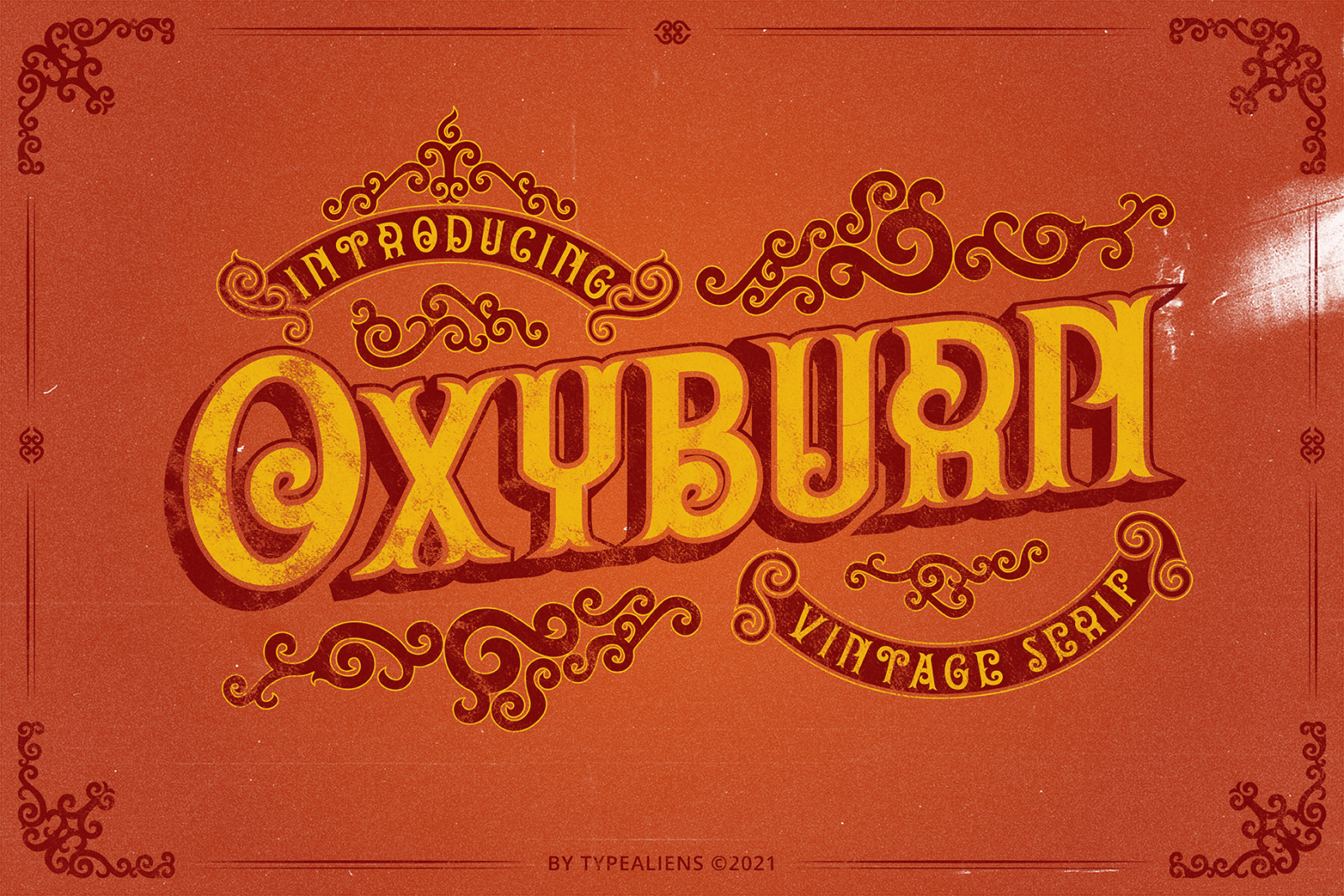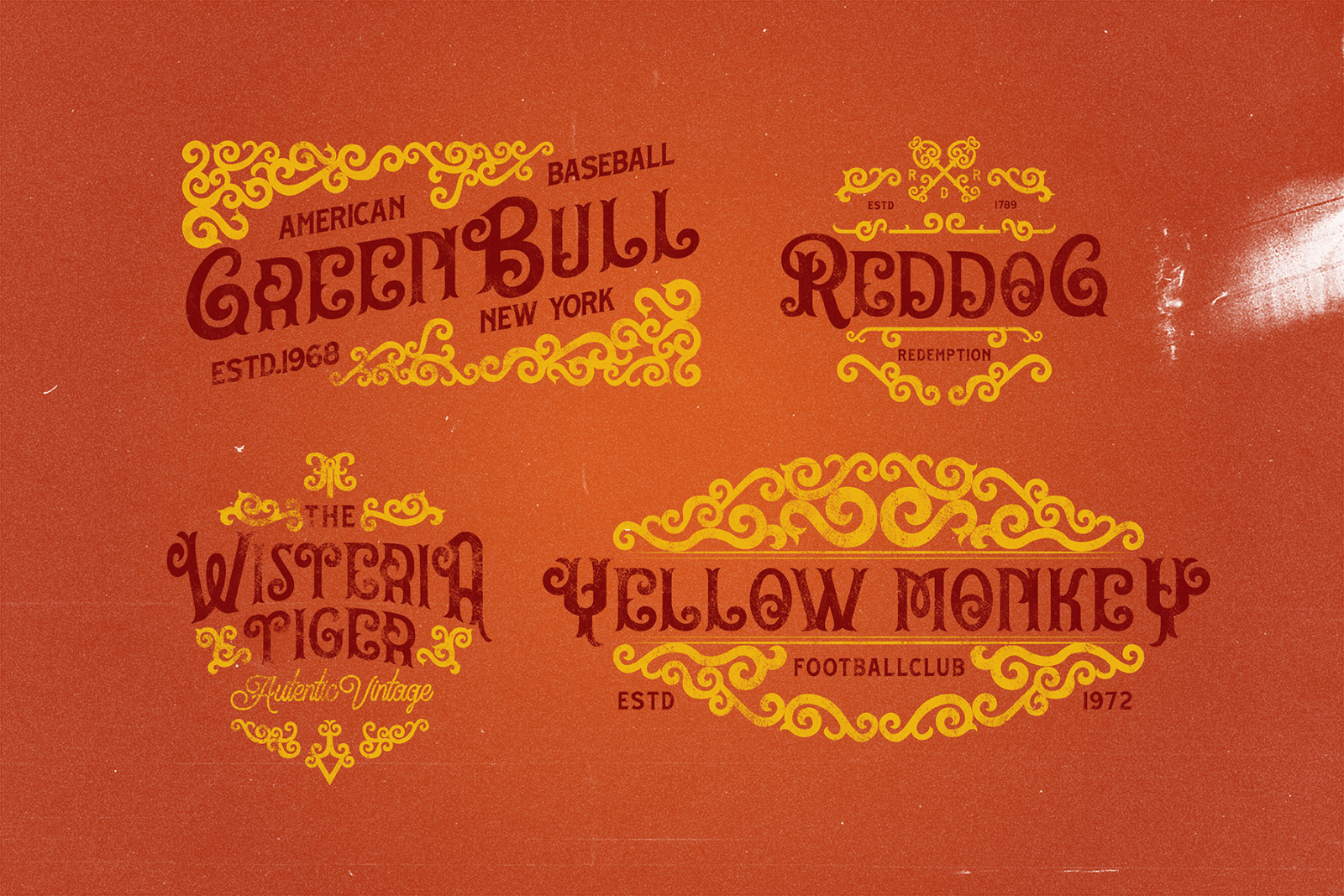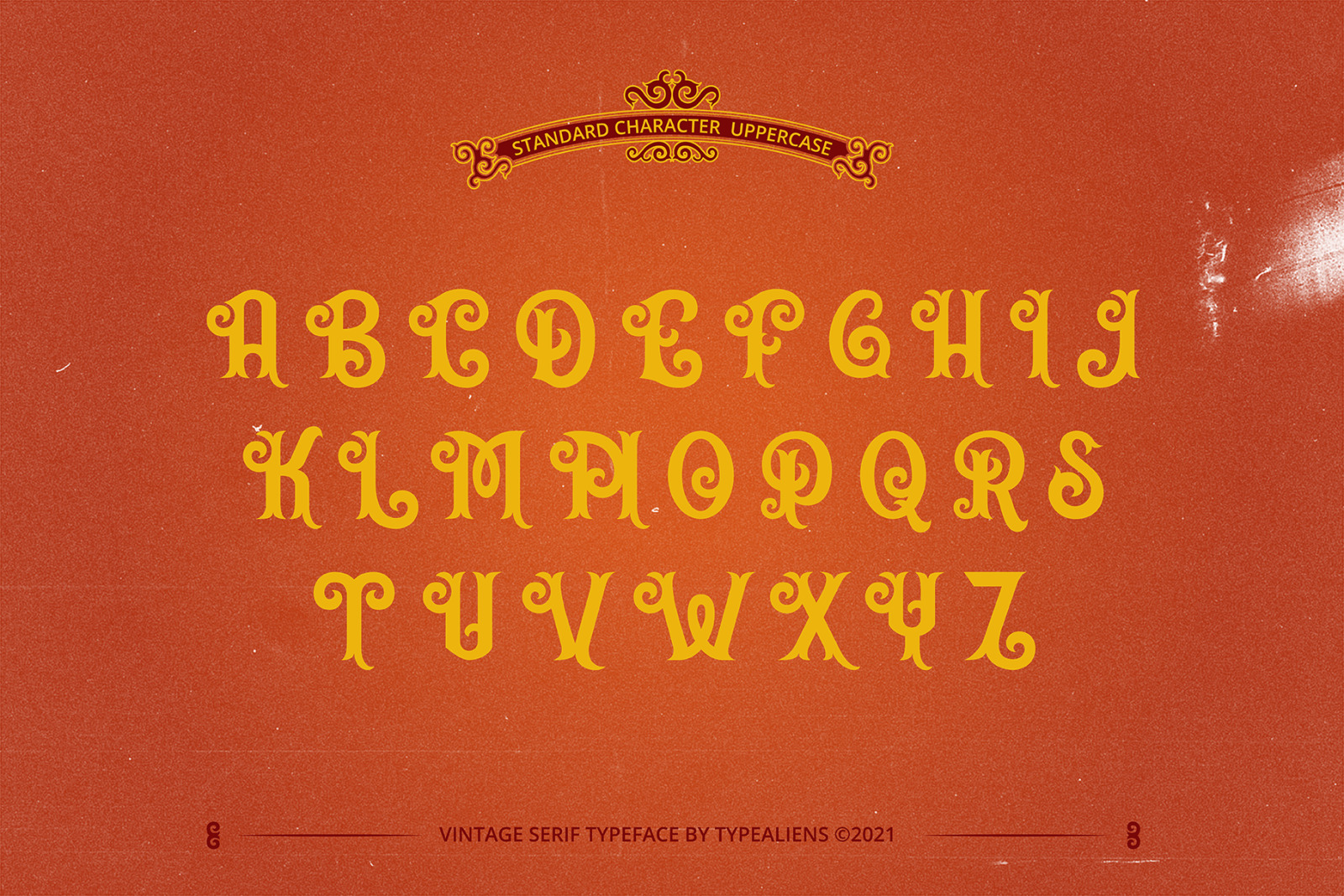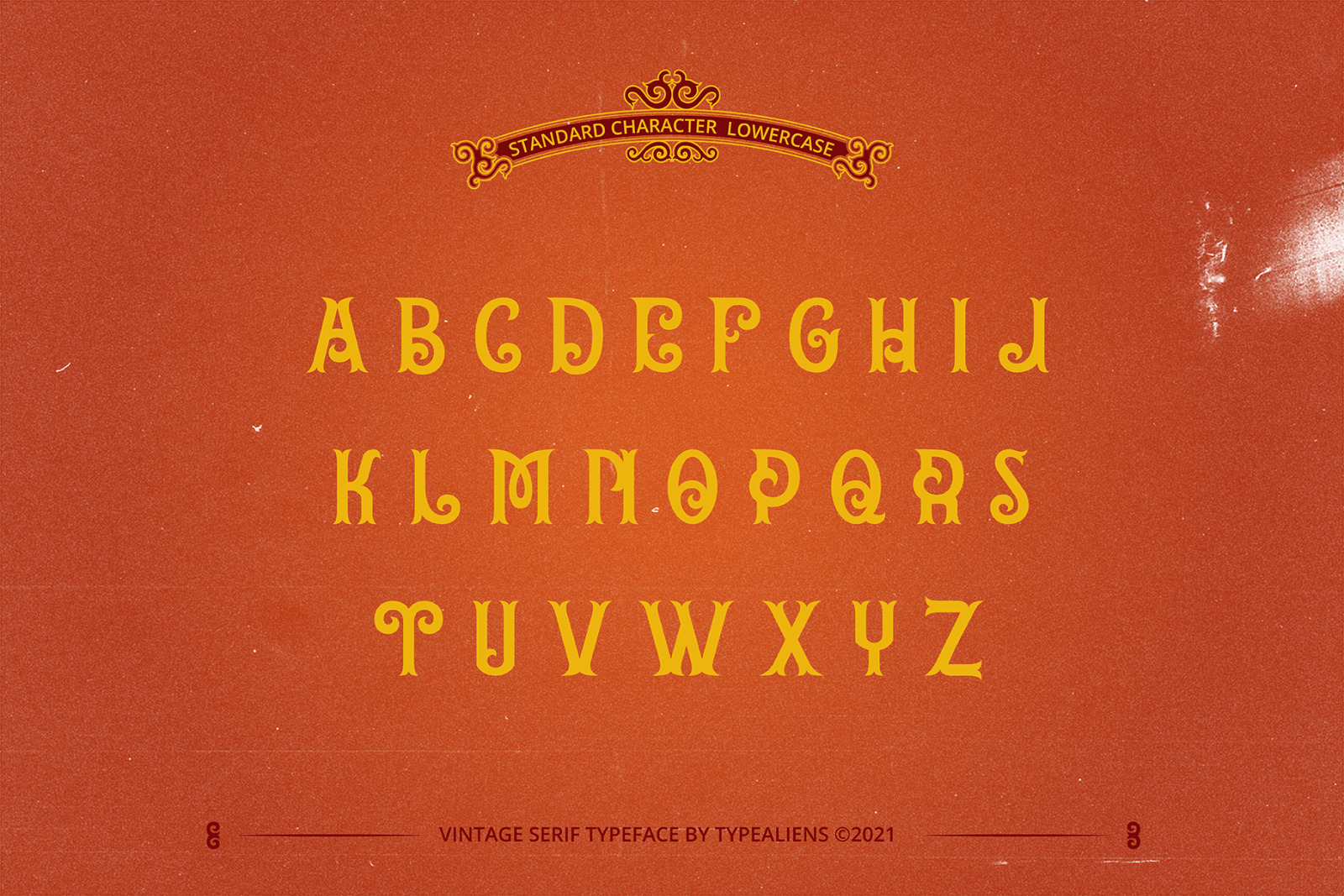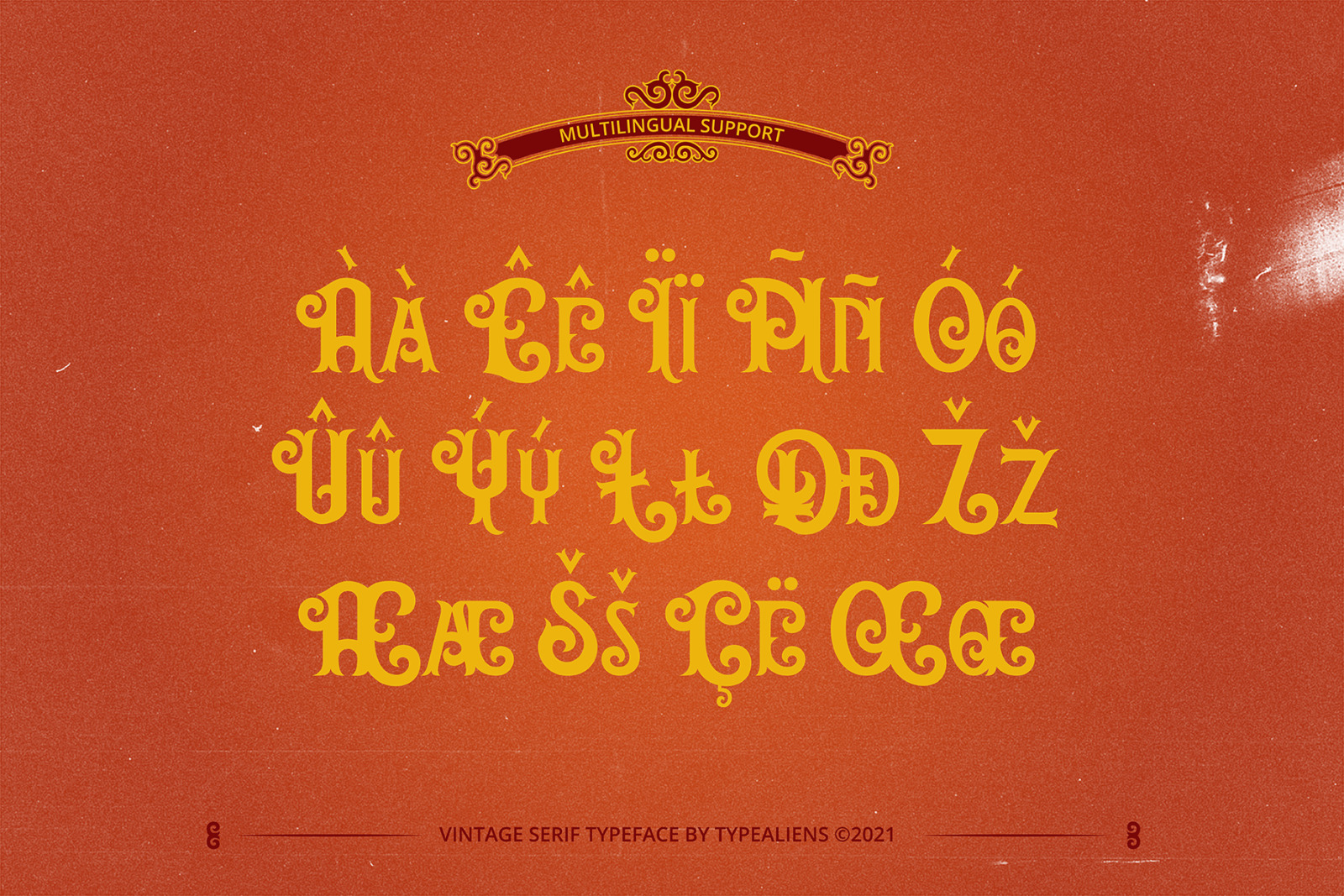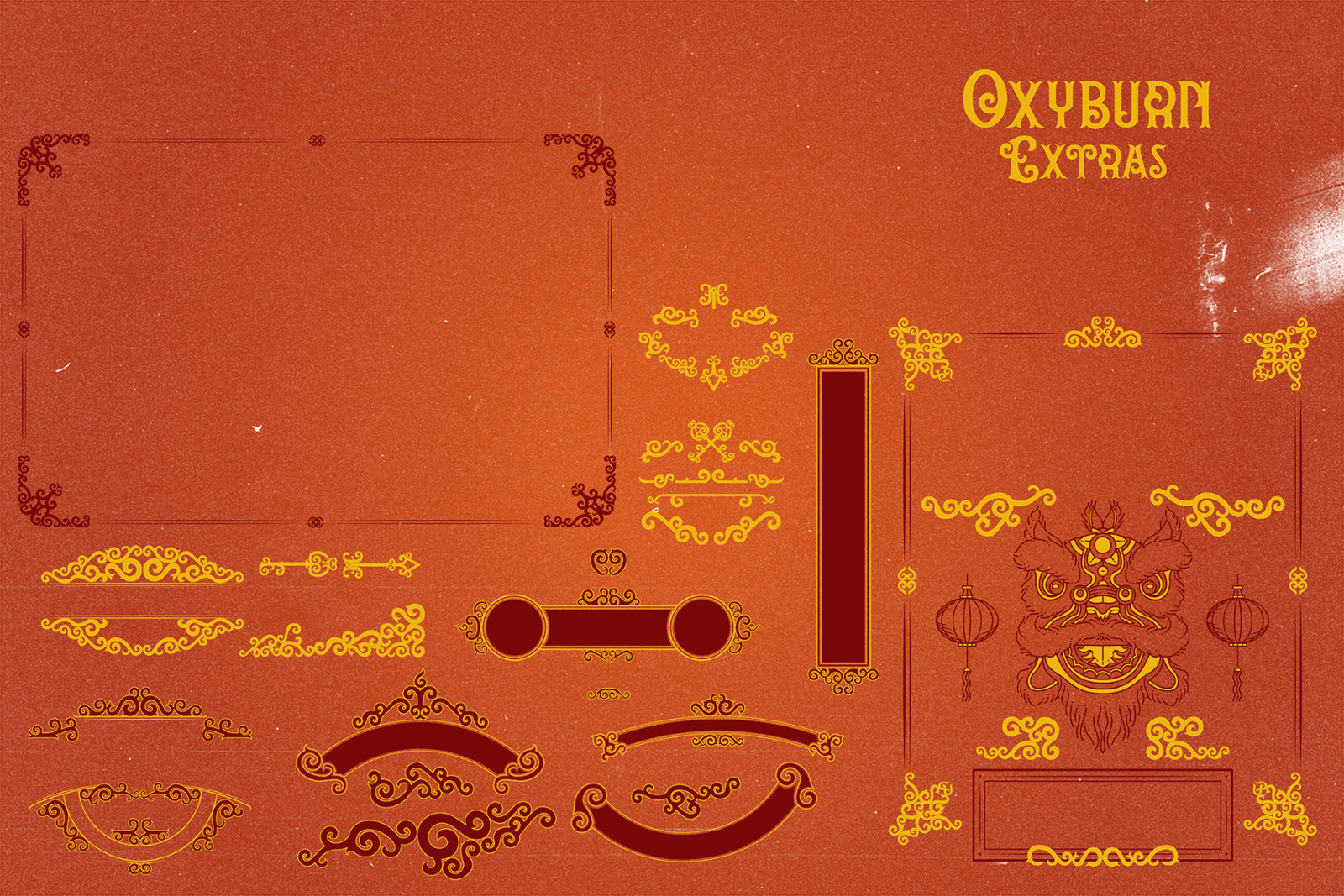
Oxyburn Font
OXYBURN is a serif font that is classified as a display font, with a vintage style that will be very attractive if combined with tendrils ornaments, such as the characteristic of this font.
This font is an all caps font, but with a different shape between the Uppercase and Lowercase. With a bold shape so it is very good for making displays such as logos, liquor label designs, posters, etc., in a vintage style of course. Coupled with extras which are expected to help beautify your designs when using this font.